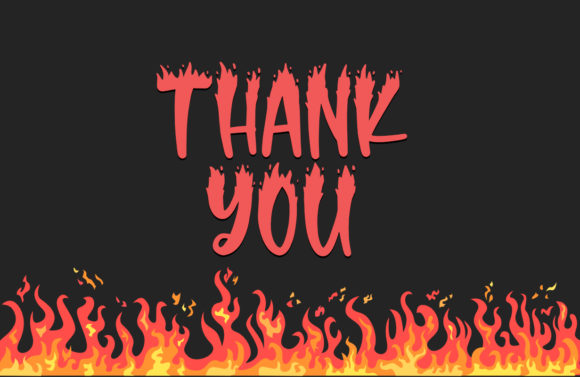
Spicy Fire Font
Spicy Fire is an incredibly unique and interesting display font. Add this font to your creative ideas and notice how it will make them stand out!